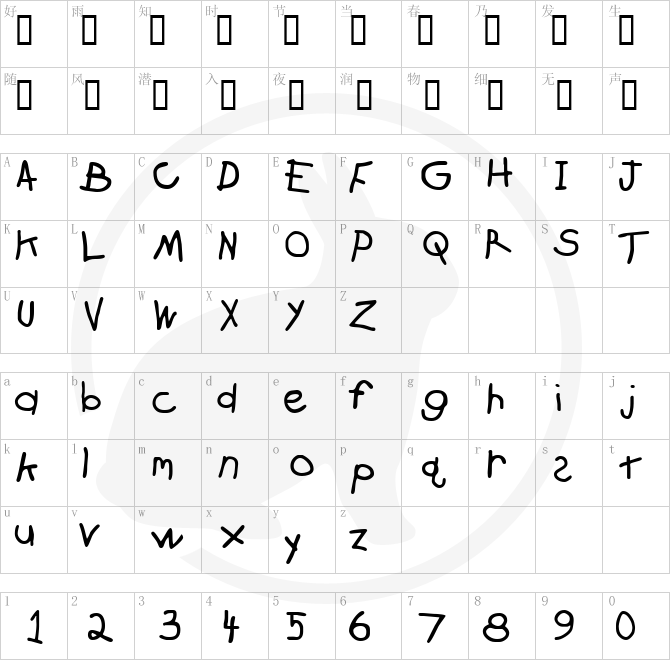
- Font Name:Zachary
Zachary.ttf is a very beautiful artistic font, Zachary.ttf is widely used in the design and printing of various books and pictures,Zachary.ttf has a strong visual impact,Zachary.ttf is a commonly used font in newspapers, magazines and books, and is used in posters, e-commerce Poster design, store design, logo design, font design and other fields.Zachary.